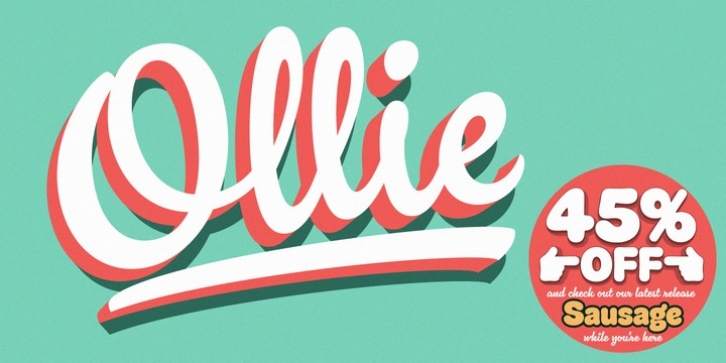
Ollie includes about 900 glyphs, many of which are automagical substitutions to keep the text flowing smoothly, and to pseudo-randomly pick different glyphs to avoid repetition. With contextual alternates turned on (as they should be by default), most lowercase letters will alternate between at least two different forms. The powerful OpenType programming makes the font itself 'look back' (up to eight characters) on previously used letters; typing "banana" will give you three different a's and two different n's (the last a is a special 'end form' character).
The calt feature controls many other 'special effects' which all add together to give a smooth-flowing, hand-lettered look. These effects include start and end forms (and indeed, 'loner' forms) of many letters, which are automatically substituted in at beginnings or ends of words, or when the previous or next letter doesn't connect. Another special feature tests to see if there is room for the crossbar of t (or tt ligature) to extend further over the previous or next letter, or both, as is often the case. The last main effect of the calt feature is to substitute certain letters typed before any 'e' character, to make for a more natural connection (see the pe combination in 'Schizotype' in the first poster).
Ligatures should be on by default, for a much nicer looking tt combination, and a few others besides. The swash feature should be used sparingly (one glyph at a time, really) to apply a more extravagant look to g,j and y in the lower case, and quite a few of the upper case too.
Oldstyle figures are included, as well as the lining defaults.
Now to delve into the stylistic alternates... These are all included in the salt feature, or for uses of applications that support them, separated into stylistic sets thus:
ss01 - (with swash feature on) L and G swashes get even swashier.
ss02 - standard s changes to a connected script s form.
ss03 - r takes on a script form.
ss04 - z also gets a scriptier look.
[the previous three sets also change any versions of s, r or z with diacritics]
ss05 - a useful underline function. When enabled, typing two or more underscores will extend a cool underline under the previous letters. More underscores = longer underline.
ss06 - the Polish script lslash changes to its more standard form.
ss07 - E, S and B change to a more top-heavy alternate form.
ss08 - An alternate form for A characters.
ss09 - Alterative rounder forms of M and N.
ss10 - An alternate ampersand.